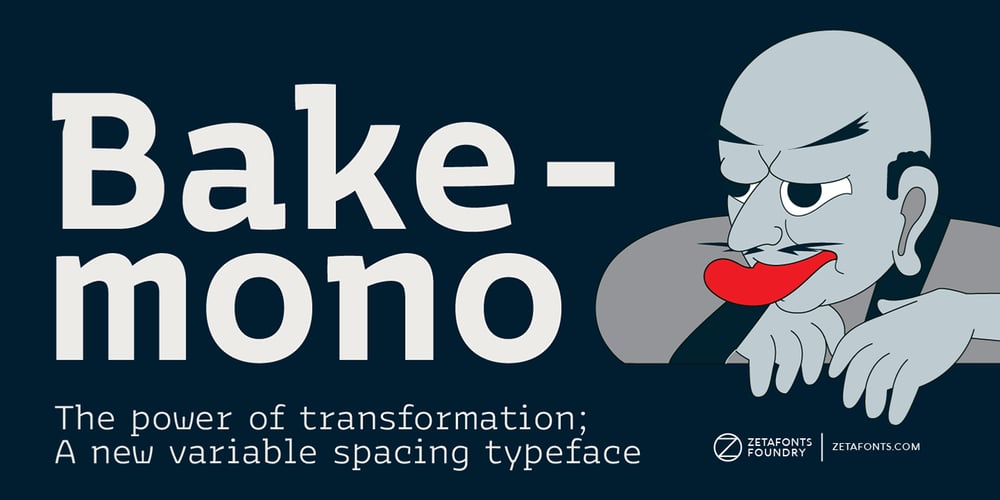
Bakemono
Bakemono font
Bakemono Font Family was designed by Francesco Canovaro and published by Zetafonts. Bakemono contains 22 styles and family package options. Francesco Canovaro created Bakemono as a way to explore the design space around the duality of fixed/proportional width. He was also interested in the concept of monowidth design, inherent in monospaced typefaces, that can bring flexibility and ease of use also to proportional type – allowing you to change the weight of a word without losing the text alignment. In his research on fixed width type design he mixed the lessons of mechanical typewriter technology with the intuitions of eastern brush calligraphy, which has been dealing with for centuries with fixed space grids. The name of the typeface comes from the Japanese shape-shifter yokais that could change their form freely between human and animal, and aptly describes the metamorphic nature of this wide superfamily coming in proportional, monospace and intermediate subfamilies. With a design mixing the expansion principles of the brush with the sharp technicality of typewriter and system fonts, Bakemono can both excel at text size in its regular widths optimized for legibility as well as owning the page at display size with its uncommon design details.Bakemono reflects its multicultural nature with its extended latin + cyrillic charset, soon to be expanded with Bakemono Arabic (exploring the fascinating world of monospaced arabic script) and Bakemono Kana (our first experiment in cjk scripts). • Suggested uses: born to allow you to change the weight of a word without losing the text alignment, Bakemono can both excel at text size in its regular widths optimised for legibility as well as owning the page at display size with its uncommon design details. Perfect for contemporary branding, web design, packaging and countless other projects;• 21 styles: 7 weights x 3 different styles + 1 variable font;• 839 glyphs in each weight;• Useful OpenType features: Access All Alternates, Contextual Alternates, Case-Sensitive Forms, Glyph Composition / Decomposition, Denominators, Fractions, Localized Forms, Mark Positioning, Mark to Mark Positioning, Alternate Annotation Forms, Numerators, Ordinals, Scientific Inferiors, 7 Stylistic Sets, Subscript, Superscript, Slashed Zero• 217 languages supported (extended Latin and Cyrillic alphabets): English, Spanish, Portuguese, French, Russian, German, Javanese (Latin), Vietnamese, Turkish, Italian, Polish, Afaan Oromo, Azeri, Tagalog, Sundanese (Latin), Filipino, Moldovan, Romanian, Indonesian, Dutch, Cebuano, Igbo, Malay, Uzbek (Latin), Kurdish (Latin), Swahili, Hungarian, Czech, Haitian Creole, Hiligaynon, Afrikaans, Somali, Zulu, Serbian, Swedish, Bulgarian, Shona, Quechua, Albanian, Catalan, Chichewa, Ilocano, Kikongo, Kinyarwanda, Neapolitan, Xhosa, Tshiluba, Slovak, Danish, Gikuyu, Finnish, Norwegian, Sicilian, Sotho (Southern), Kirundi, Tswana, Sotho (Northern), Belarusian (Latin), Turkmen (Latin), Bemba, Lombard, Lithuanian, Tsonga, Wolof, Jamaican, Dholuo, Galician, Ganda, Low Saxon, Waray-Waray, Makhuwa, Bikol, Kapampangan (Latin), Aymara, Ndebele, Slovenian, Tumbuka, Venetian, Genoese, Piedmontese, Swazi, Zazaki, Latvian, Nahuatl, Silesian, Bashkir (Latin), Sardinian, Estonian, Afar, Cape Verdean Creole, Maasai, Occitan, Tetum, Oshiwambo, Basque, Welsh, Chavacano, Dawan, Montenegrin, Walloon, Asturian, Kaqchikel, Ossetian (Latin), Zapotec, Frisian, Guadeloupean Creole, Q’eqchi’, Karakalpak (Latin), Crimean Tatar (Latin), Sango, Luxembourgish, Samoan, Maltese, Tzotzil, Fijian, Friulian, Icelandic, Sranan, Wayuu, Papiamento, Aromanian, Corsican, Breton, Amis, Gagauz (Latin), Māori, Tok Pisin, Tongan, Alsatian, Atayal, Kiribati, Seychellois Creole, Võro, Tahitian, Scottish Gaelic, Chamorro, Greenlandic (Kalaallisut), Kashubian, Faroese, Rarotongan, Sorbian (Upper Sorbian), Karelian (Latin), Romansh, Chickasaw, Arvanitic (Latin), Nagamese Creole, Saramaccan, Ladin, Kaingang, Palauan, Sami (Northern Sami), Sorbian (Lower Sorbian), Drehu, Wallisian, Aragonese, Mirandese, Tuvaluan, Xavante, Zuni, Montagnais, Hawaiian, Marquesan, Niuean, Yapese, Vepsian, Bislama, Hopi, Megleno-Romanian, Creek, Aranese, Rotokas, Tokelauan, Mohawk, Onĕipŏt, Warlpiri, Cimbrian, Sami (Lule Sami), Jèrriais, Arrernte, Murrinh-Patha, Kala Lagaw Ya, Cofán, Gwich’in, Seri, Sami (Southern Sami), Istro-Romanian, Wik-Mungkan, Anuta, Cornish, Sami (Inari Sami), Yindjibarndi, Noongar, Hotcąk (Latin), Meriam Mir, Manx, Shawnee, Gooniyandi, Ido, Wiradjuri, Hän, Ngiyambaa, Delaware, Potawatomi, Abenaki, Esperanto, Folkspraak, Interglossa, Interlingua, Latin, Latino sine Flexione, Lojban, Novial, Occidental, Old Icelandic, Old Norse, Slovio (Latin), Volapük